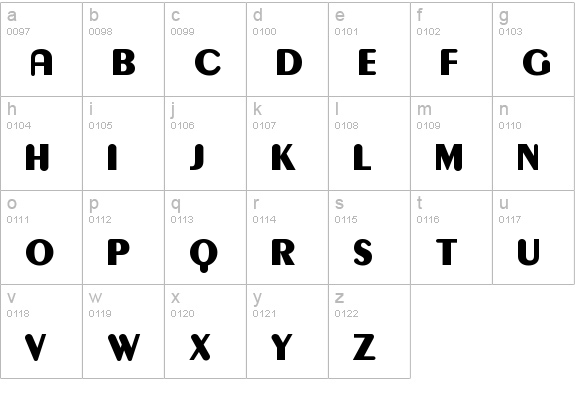
Gilgongo Kaps Font Details
Gilgongo Kaps font is a quirky and playful display typeface that exudes a sense of whimsy and charm. Its unique design features rounded edges and a slightly condensed appearance, making it perfect for adding a touch of fun to any project. Whether used for headlines, posters, or branding, Gilgongo Kaps is sure to stand out and make a statement. What makes Gilgongo Kaps even more appealing is that it is available for free download at FontsMarket.com. This means that you can easily access this delightful font and use it in your designs without any cost. Take advantage of this opportunity to add a dash of personality to your creations with Gilgongo Kaps font today!